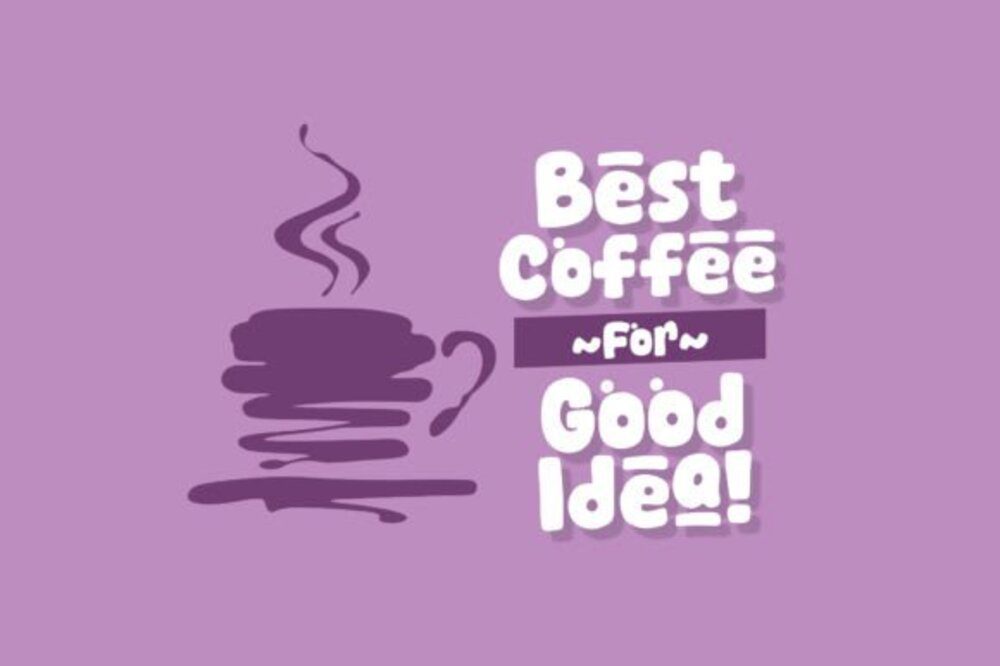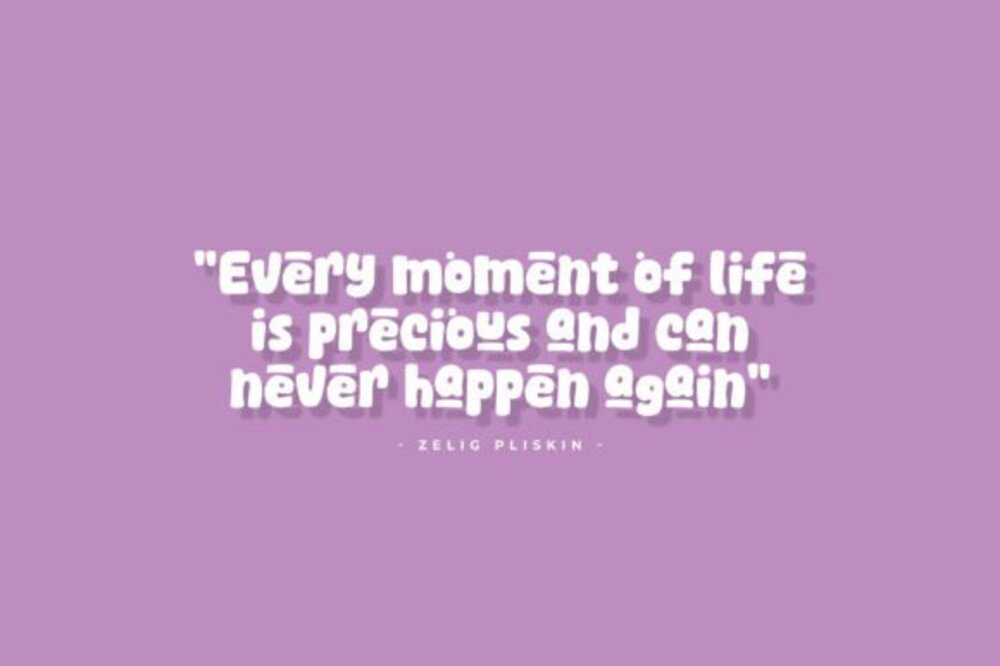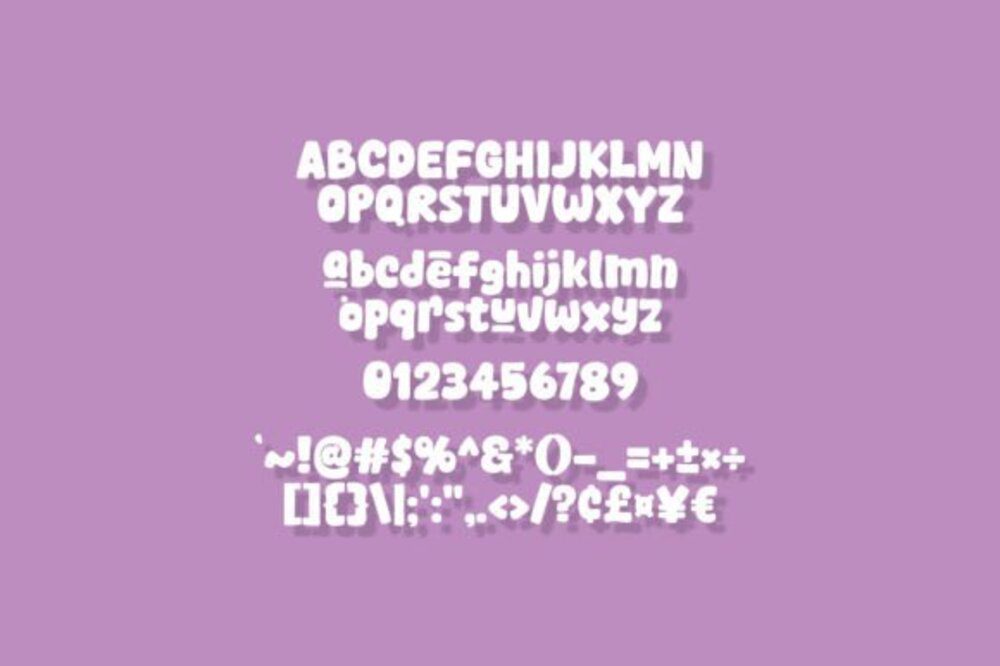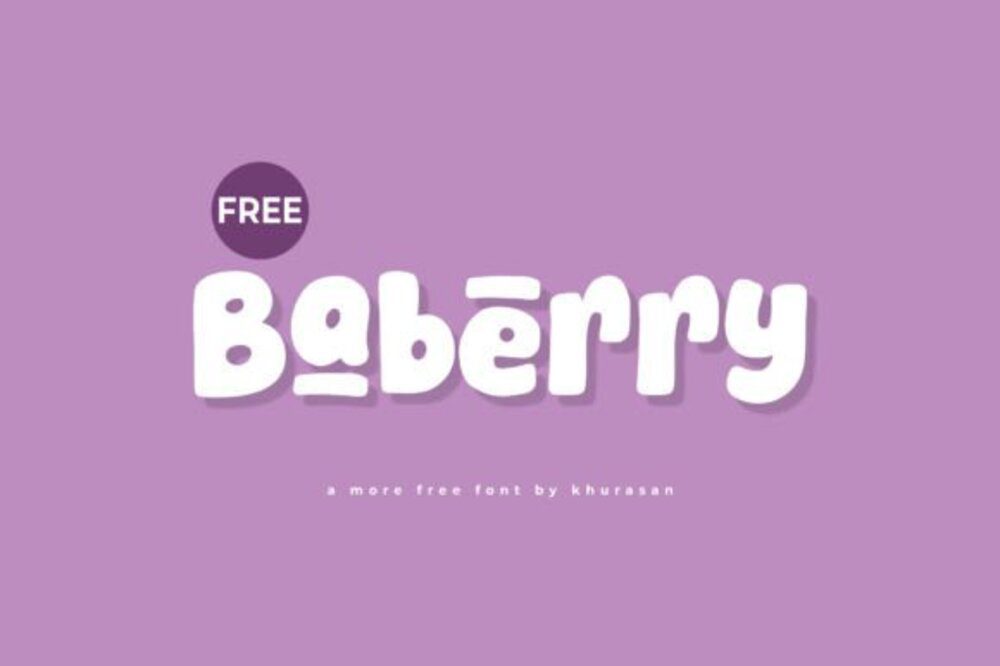
Baberry Font
Baberry Font is a chic and playful script typeface that radiates elegance with a hint of whimsy. Featuring smooth curves and stylish swashes, it’s perfect for logos, wedding invitations, branding, and stationery. Its modern calligraphic style adds a touch of sophistication while remaining approachable. Baberry’s versatile charm makes it a delightful choice for adding personality and flair to any design.